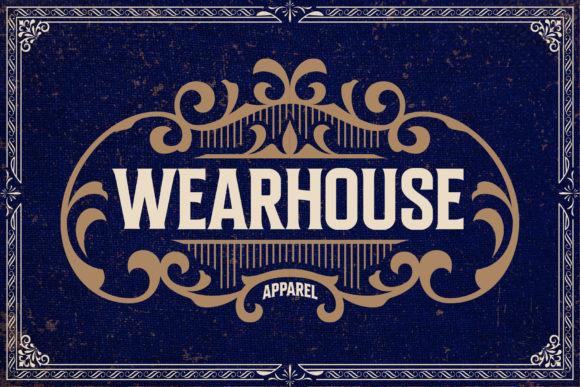
Bondrians Font
Bondrians is an authentic display font, characterized by a vintage style. This dazzling display font will turn any creative idea into a standout!